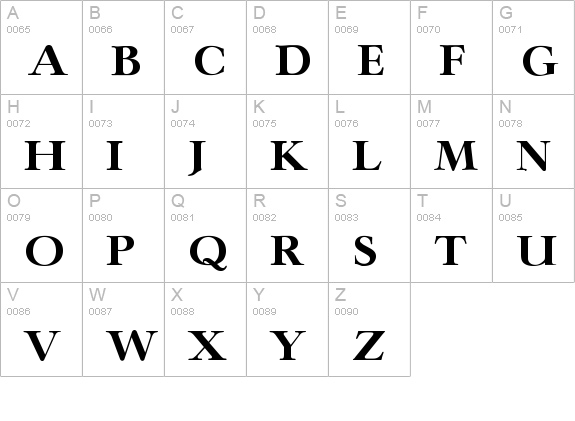
Lingwood-Bold is a strong, high-contrast variant in the Lingwood typeface family \xE2\x80\x94 well suited to headlines, attention-grabbing titles, and strong calls-to-action.
Lingwood-Bold is a versatile and modern font that brings a touch of sophistication to any design project. With its clean lines and bold style, this font is perfect for creating eye-catching headings, titles, and logos. The sharp edges and distinct letterforms of Lingwood-Bold make it stand out and grab attention. What makes Lingwood-Bold even more appealing is that it is available for free download at FontsMarket.com. This means you can easily access this stunning font and use it in your projects without any cost. Whether you're designing a website, creating marketing materials, or crafting social media graphics, Lingwood-Bold is sure to elevate your work to the next level. Download it now and add a touch of elegance to your designs with this beautiful font.